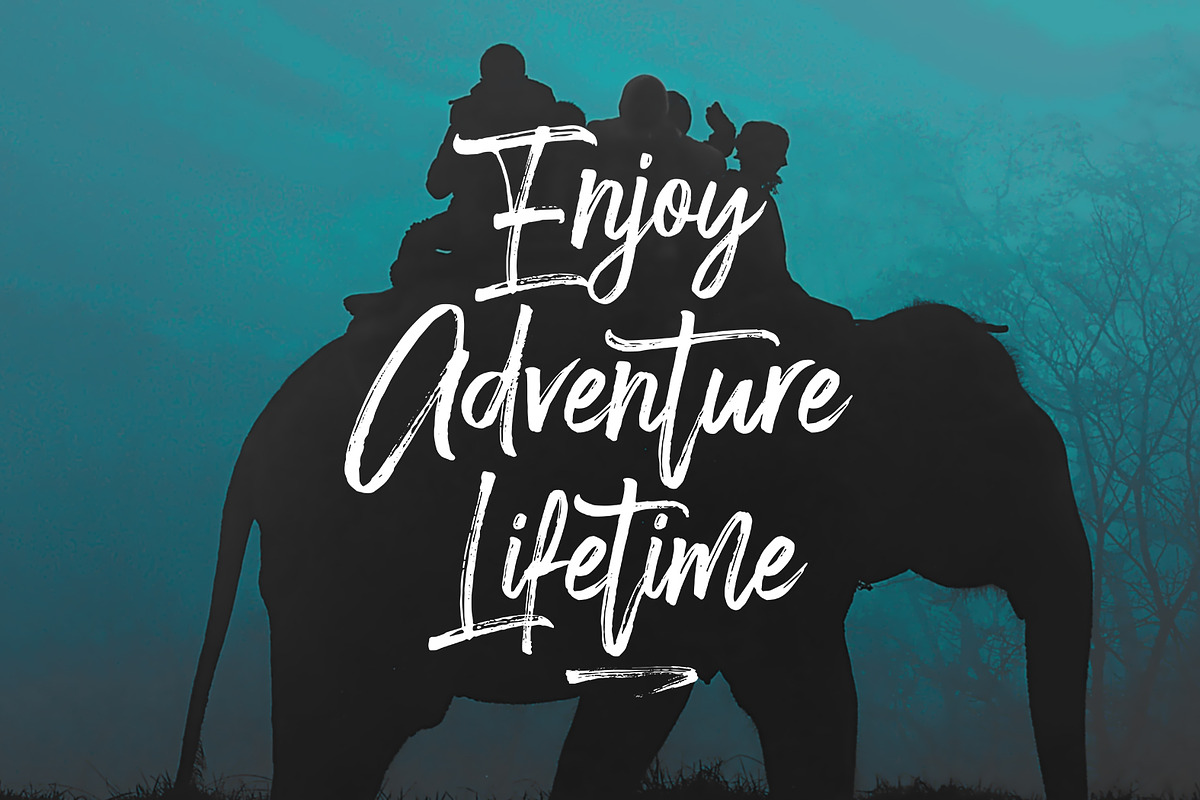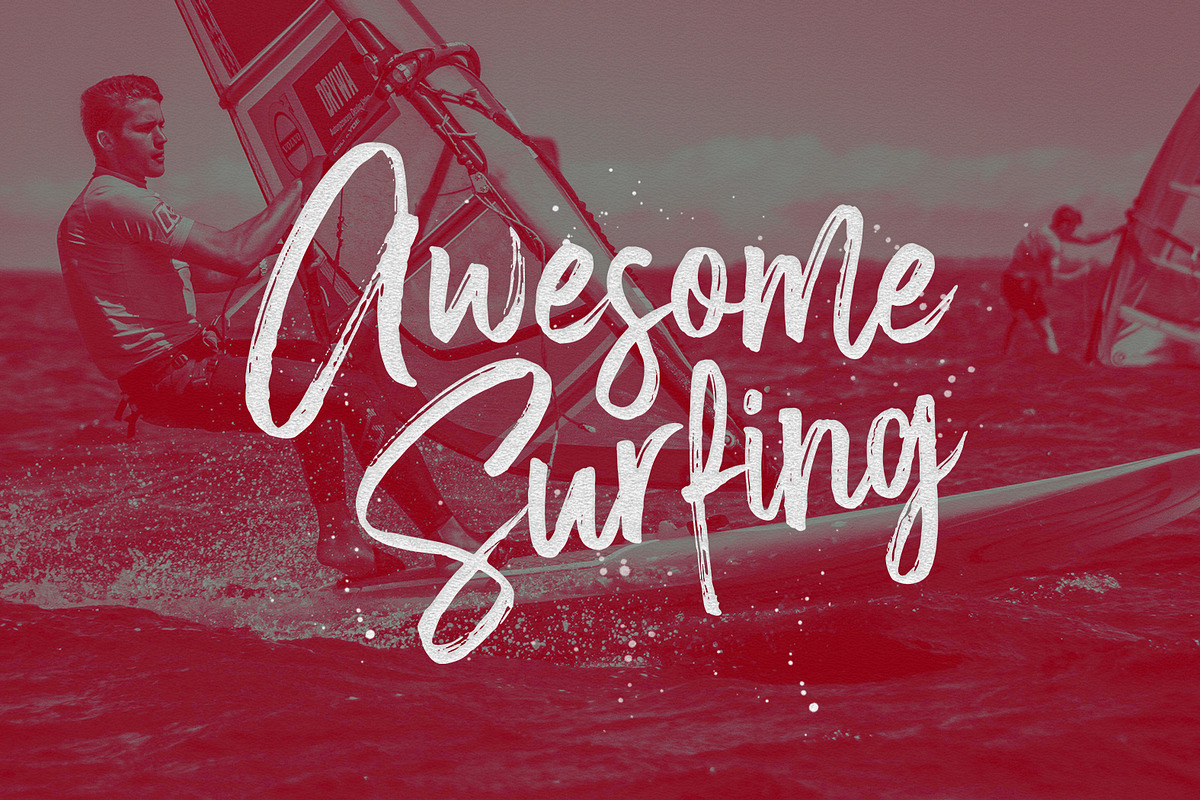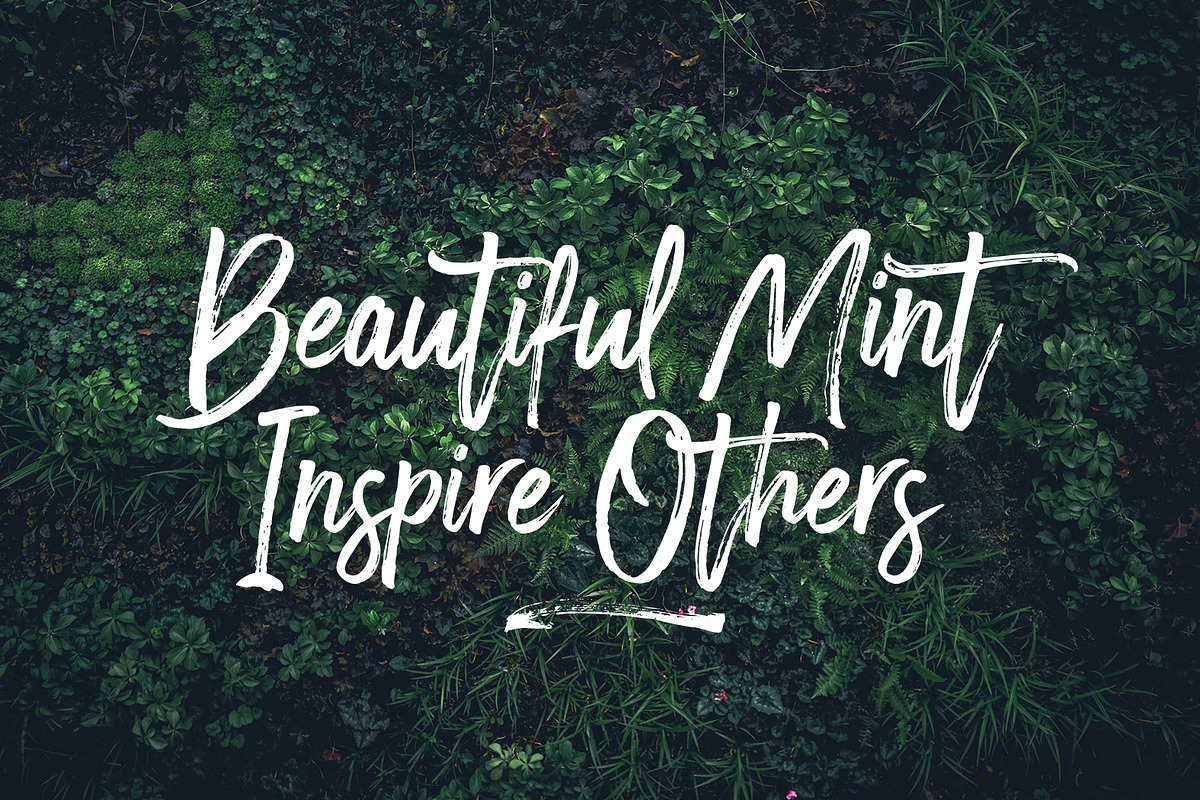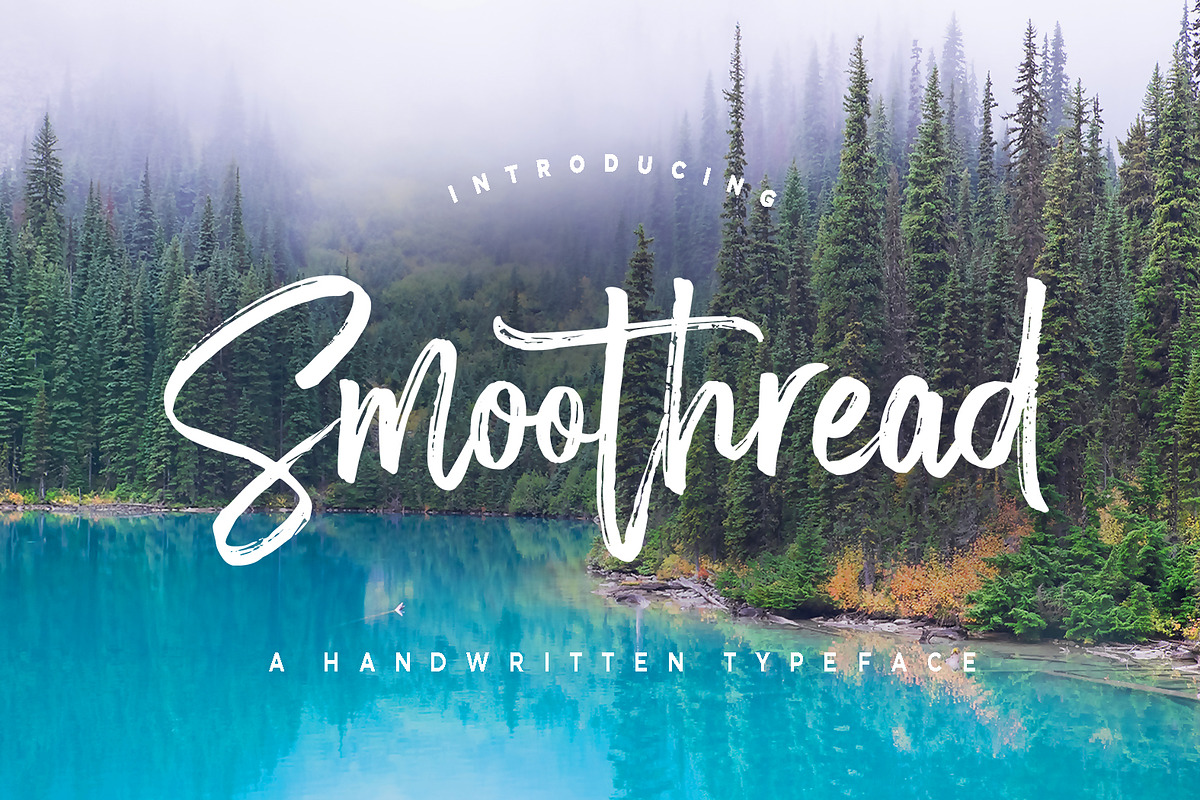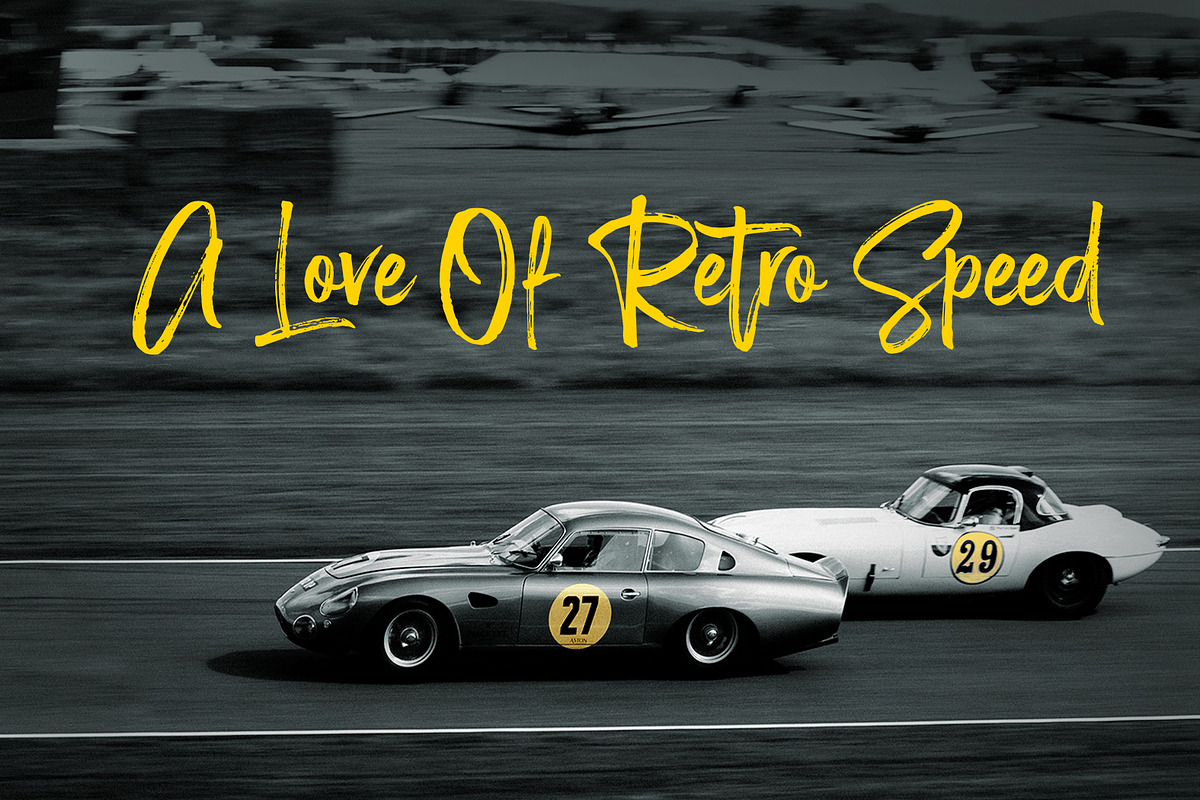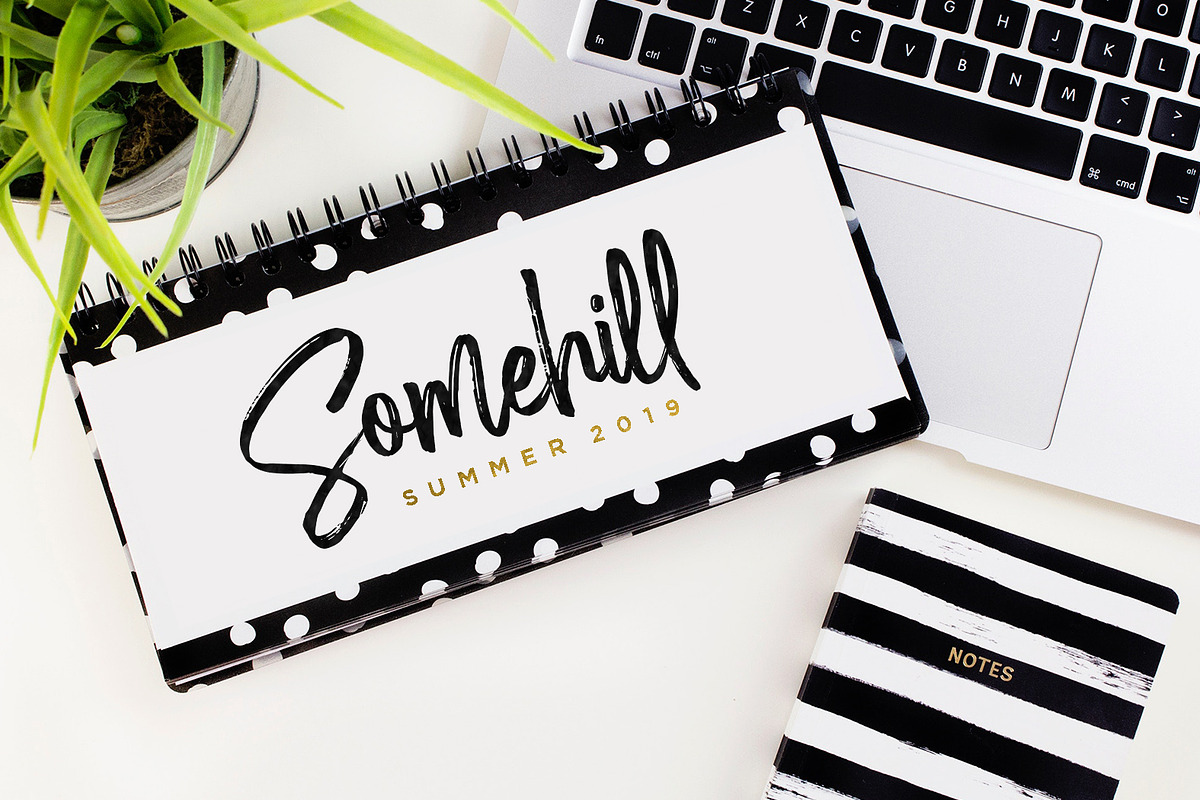
Smoothread Font
Smoothread is a handwritten brush font, a contemporary approach to design, handmade natural, suitable for use in title design such as clothing, invitations, book titles, stationery designs, quotes, branding, logos, greeting cards, T-shirts, packaging designs, posters, and more.
Smoothread has two Smoothread normal and Smoothread Slant letters, complete with uppercase and lowercase letters, as well as multi-language support, numbers, punctuation. also provide some ligatures and extra swash.
Smoothread Font by Dhan Studio fits naturally into Branding, posters, packaging, typography.